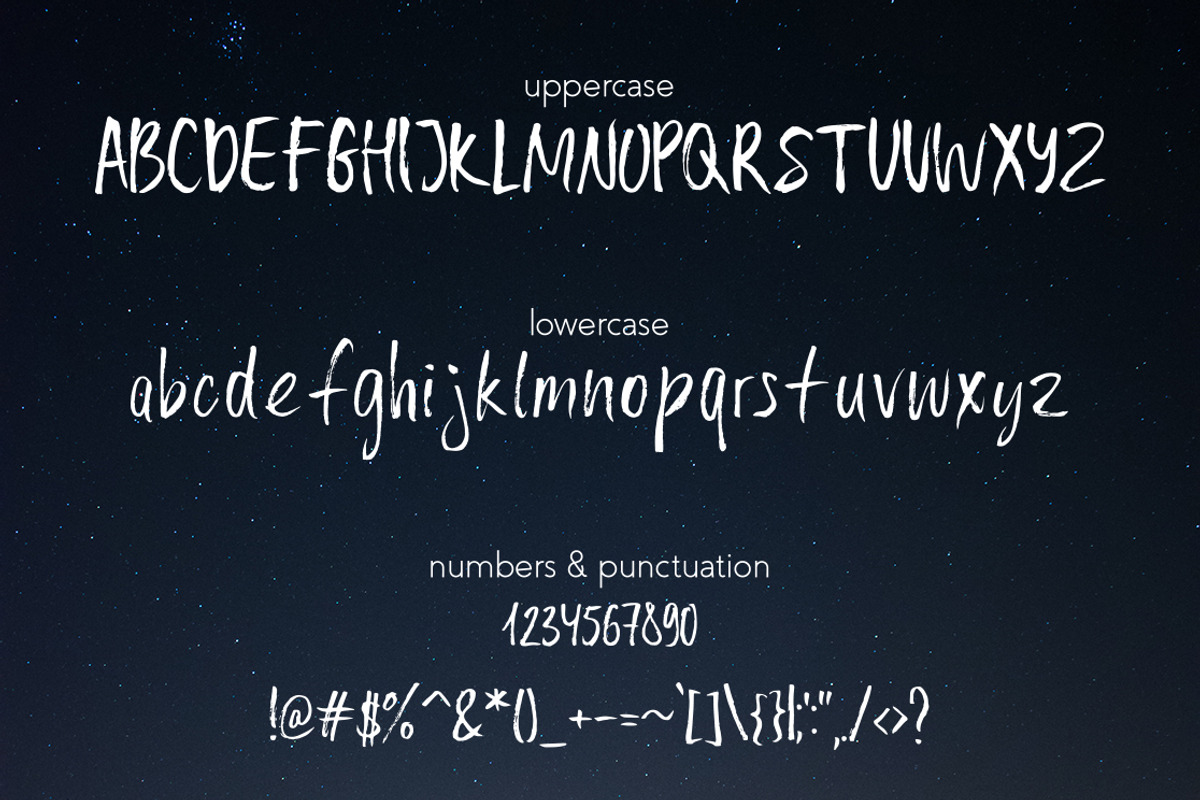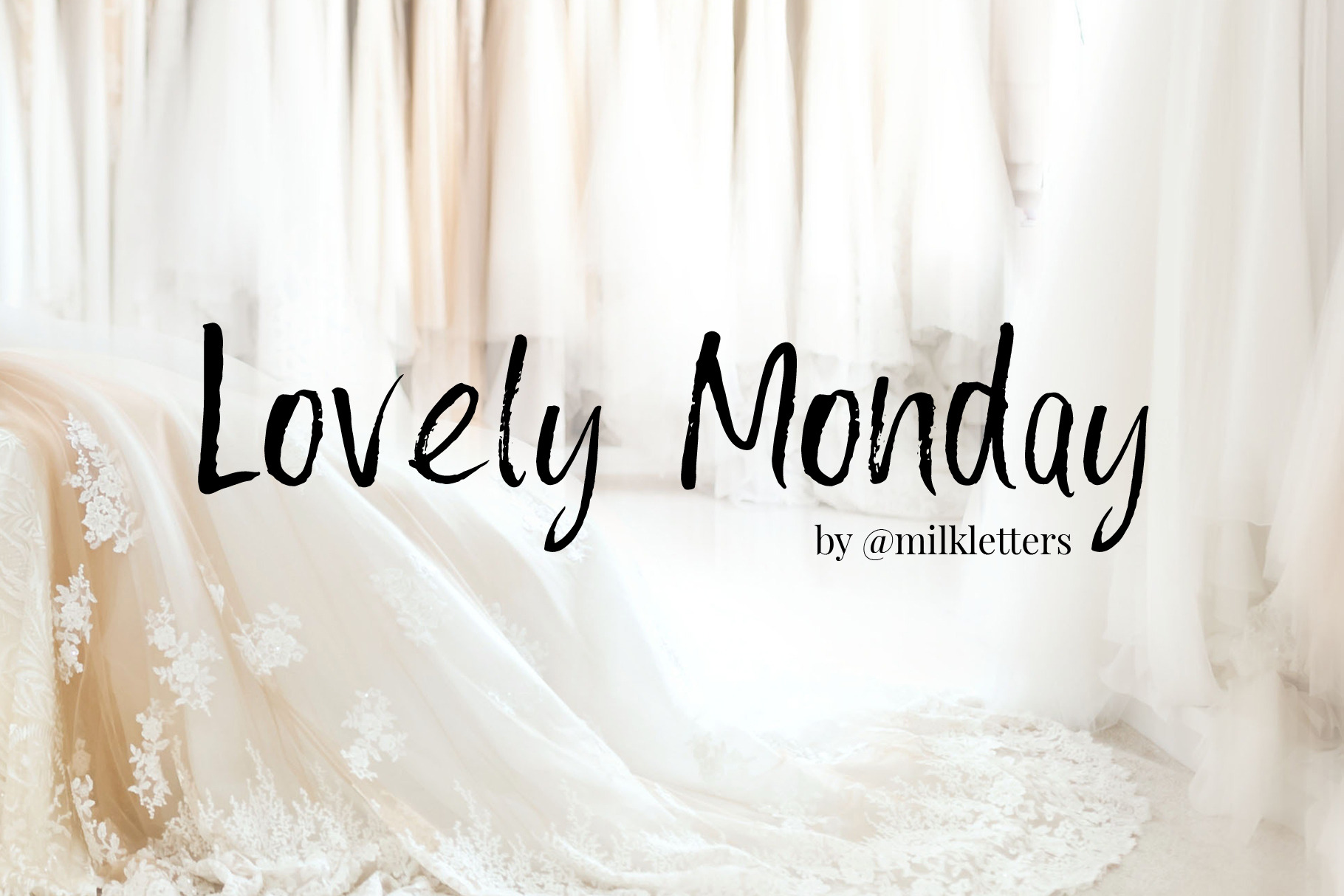
Lovely Monday Font
Introducing Lovely Monday (previously known as Monday Love), a carefree dry brush font, handwritten with a brush and ink. It's great for quotes, product packaging, branding and logo designs, magazine layout, prints and posters with a personal touch.